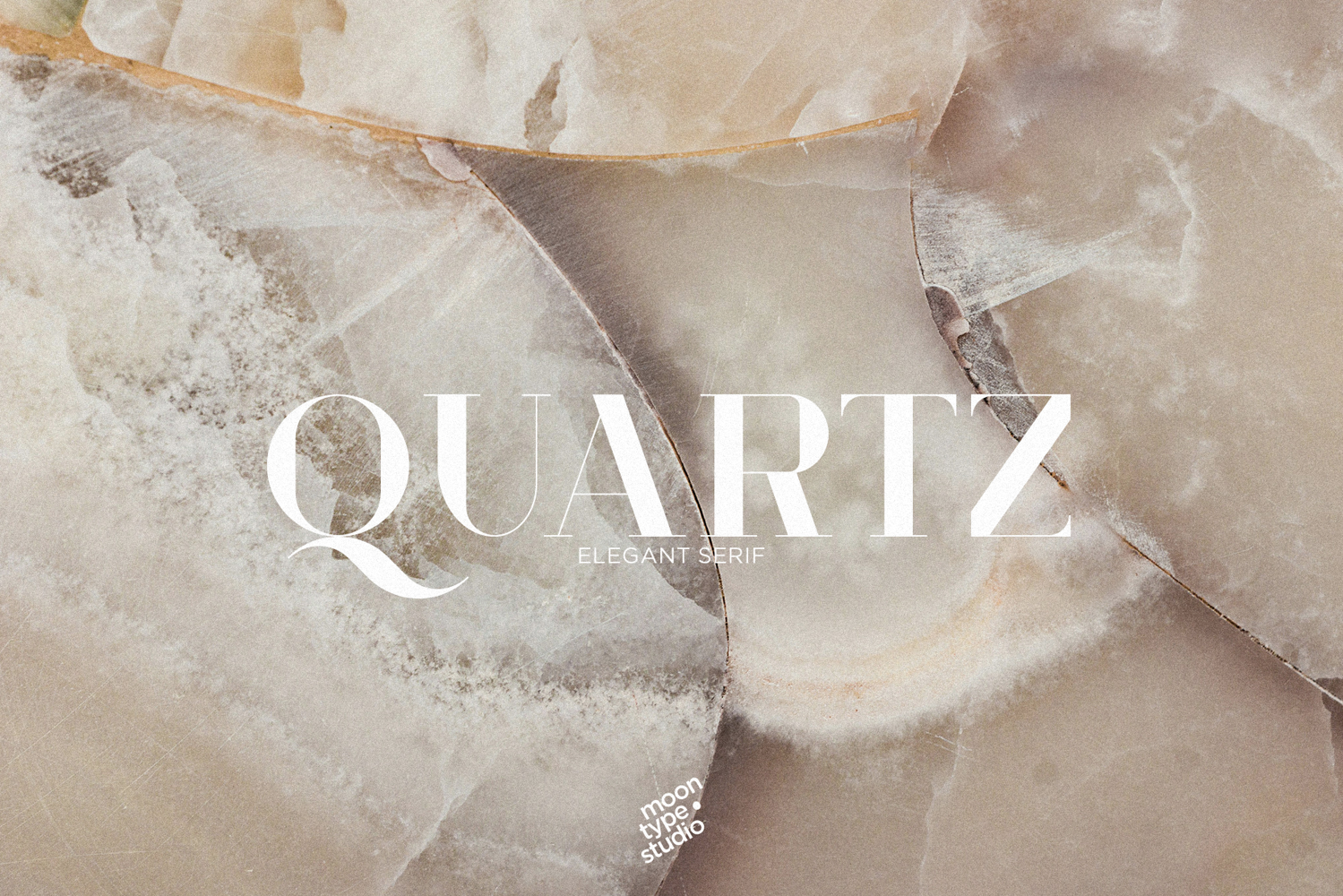
Quartz - Elegant Serif
Quartz
Quartz - Elegant Serif: A refined typeface that blends timeless elegance with modern sophistication. Its graceful serifs and balanced proportions make it perfect for high-end branding, luxury editorial work, and designs that demand a sense of poise and style.